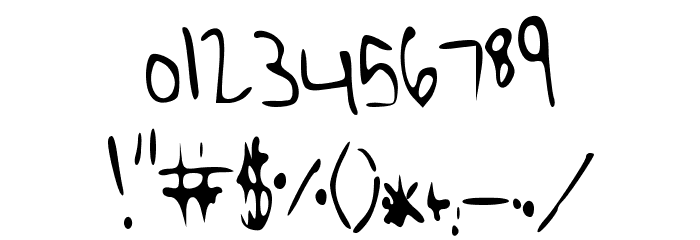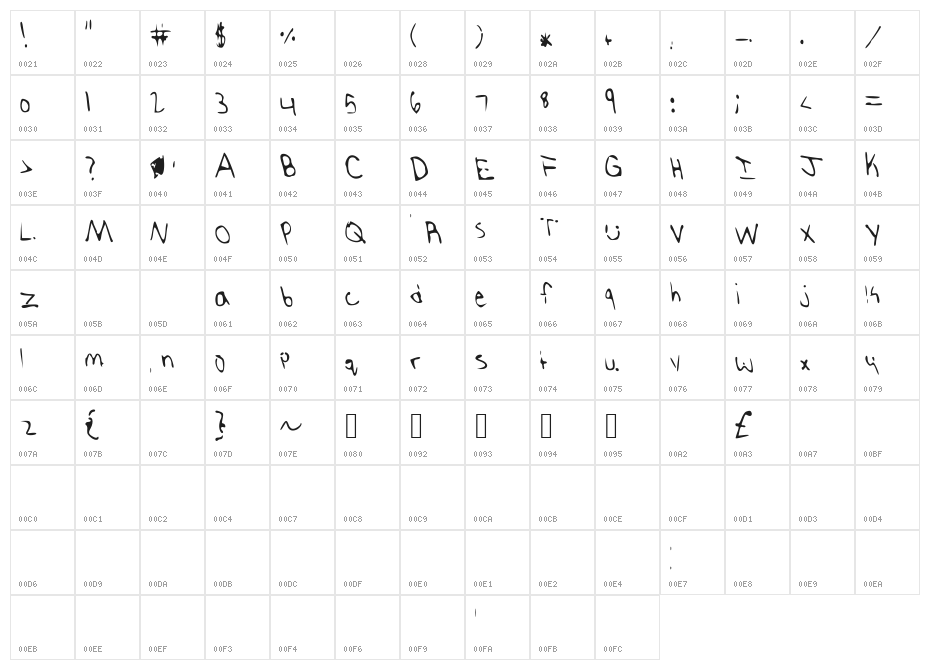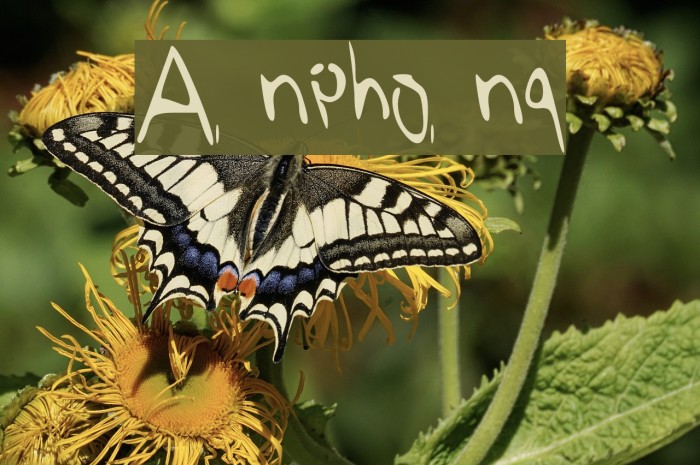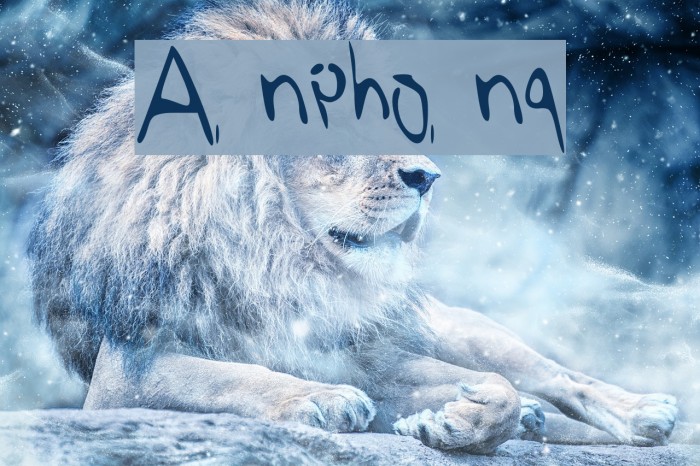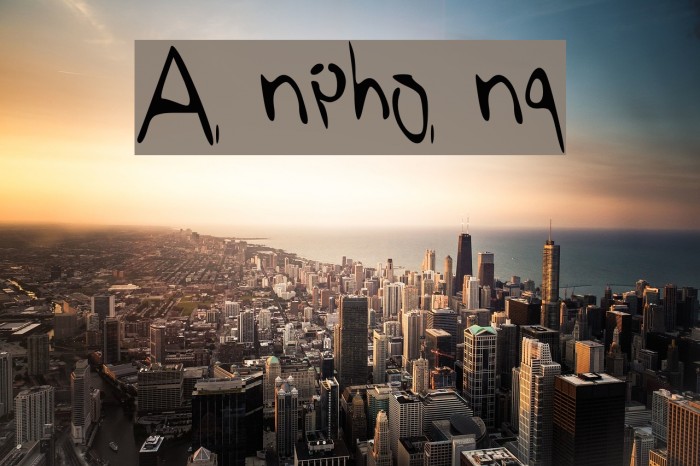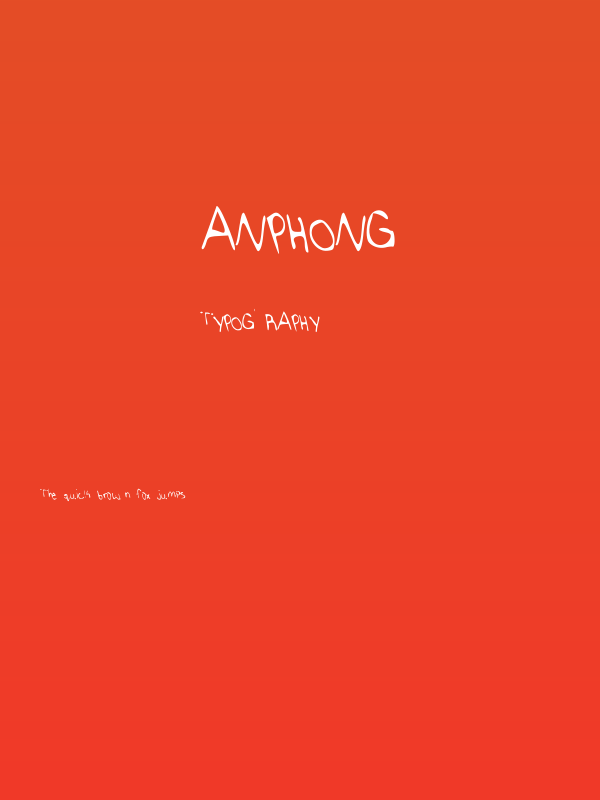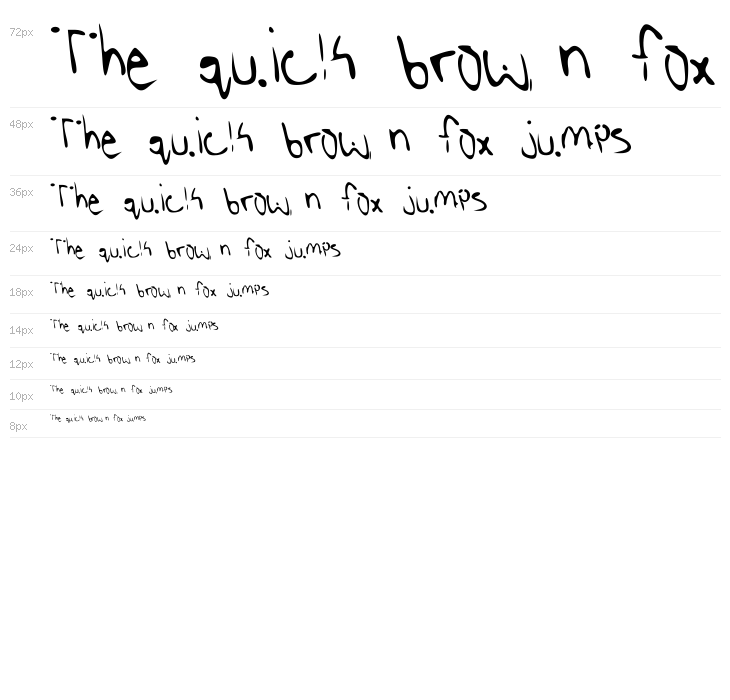
Anphong Font
Anphong Description
This font exhibits a playful and informal handwritten style, characterized by irregular strokes and a casual appearance. The letters vary in size and alignment, giving it a dynamic and spontaneous feel. The uppercase and lowercase letters maintain a consistent style, with some letters showing unique quirks, such as the slanted 'A' and the looped 'g'. The numbers and special characters follow the same whimsical design, making the font suitable for creative and artistic projects. Its uneven baseline and varied stroke thickness add to its charm, making it stand out in informal settings.
| Use Case | Logos, Posters, Creative projects |
| Proposed Projects | Ideal for greeting cards, children's books, playful branding, and artistic posters. |